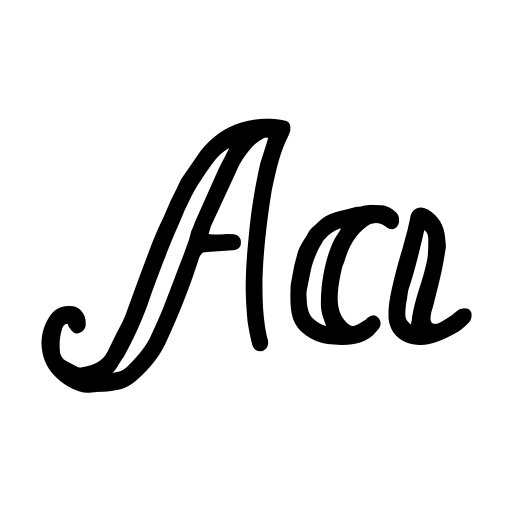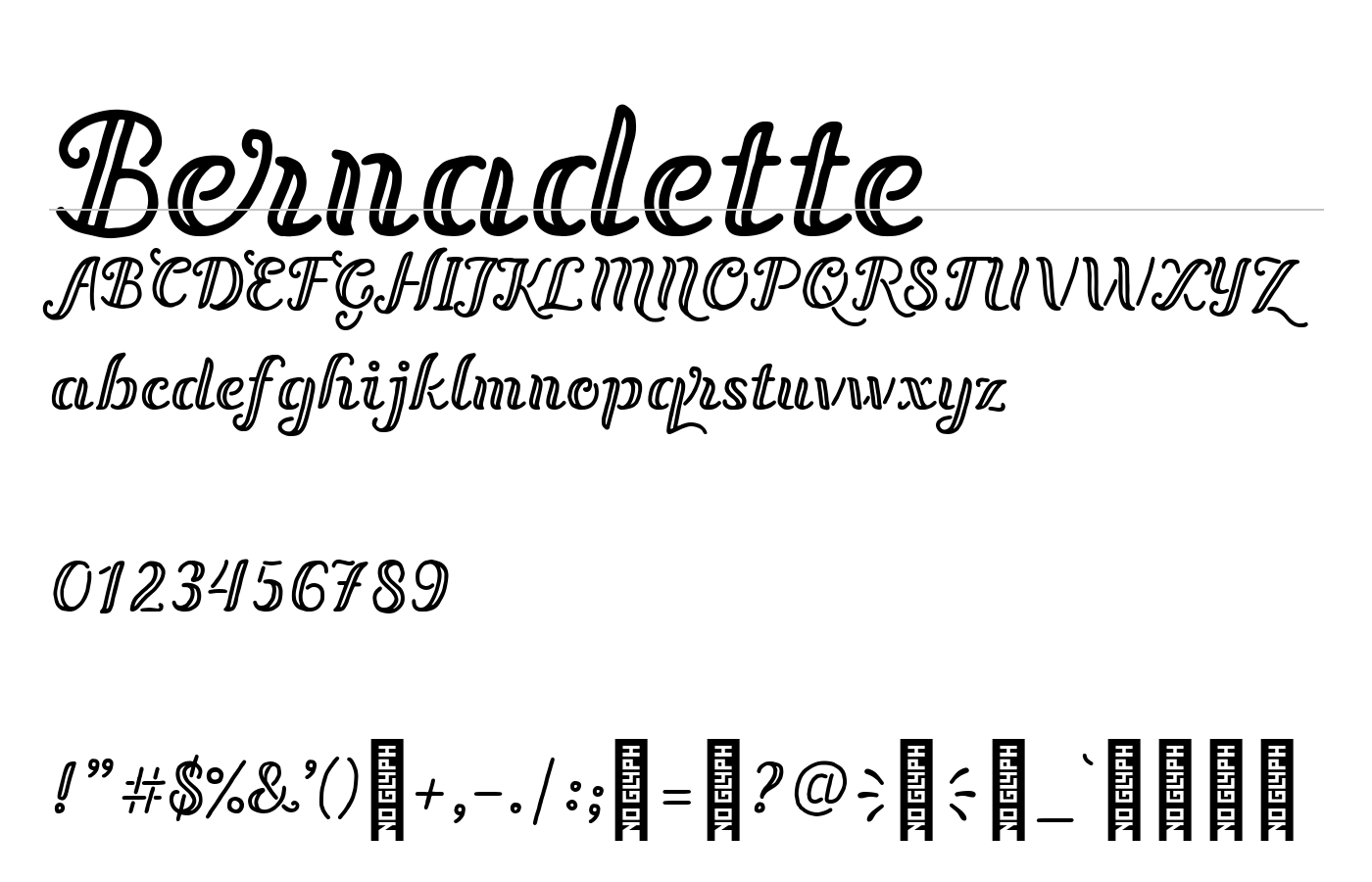
Bernadette is an elegant script font with a vintage charm, featuring smooth, graceful curves and moderate contrast that give it a lively, handcrafted feel. Its tall x-height and slender letterforms make it legible while maintaining a distinctive personality, ideal for stylish logos, packaging, and editorial designs that seek a touch of classic sophistication. This font works beautifully for projects that want to convey warmth, creativity, and a timeless, friendly elegance.
Bernadette Font
About Bernadette Font